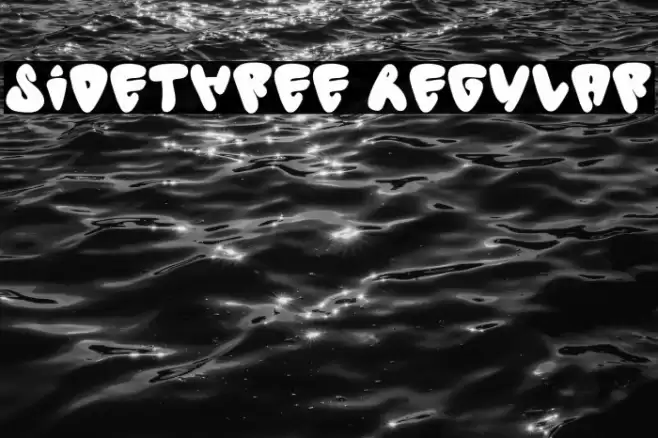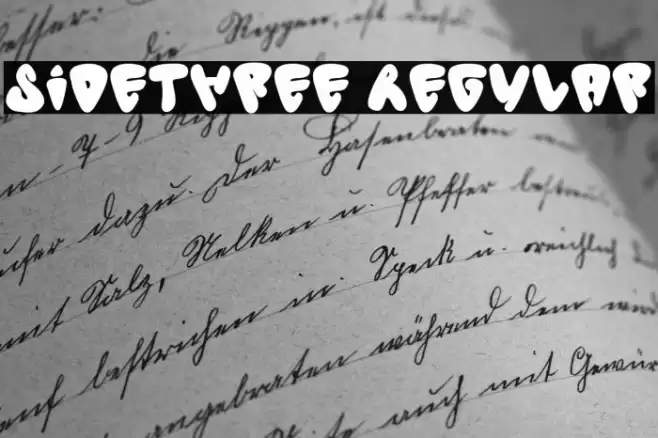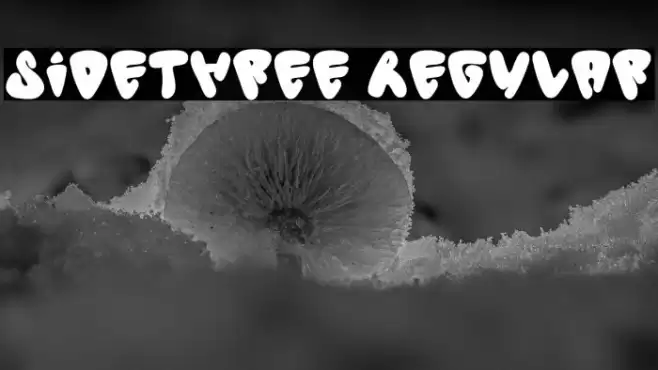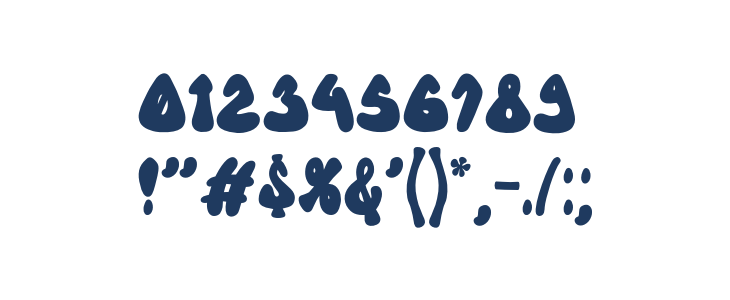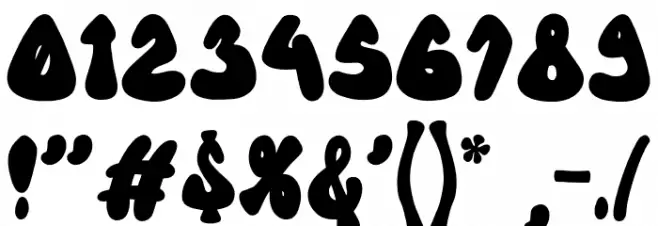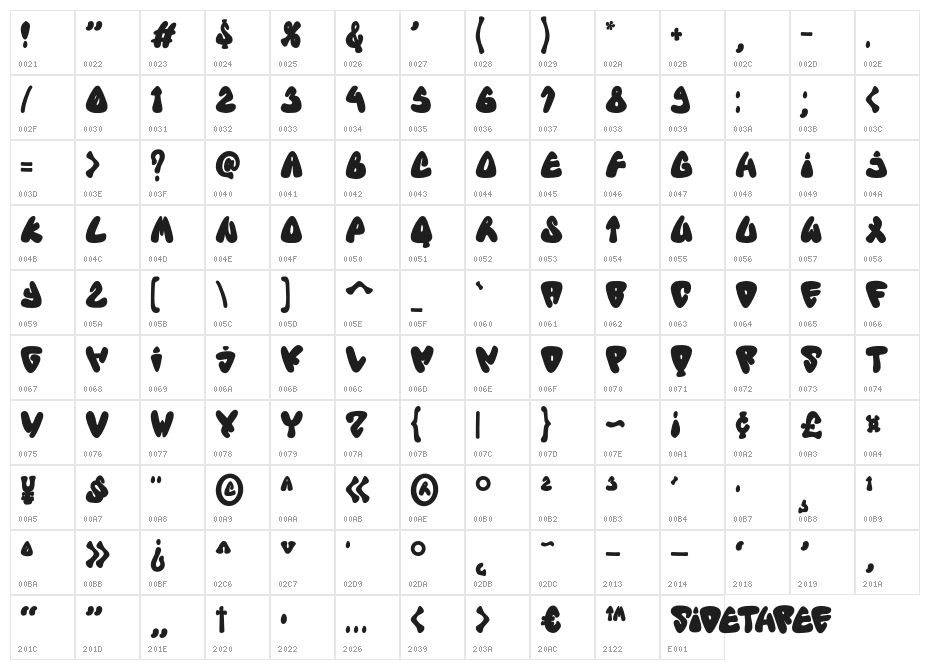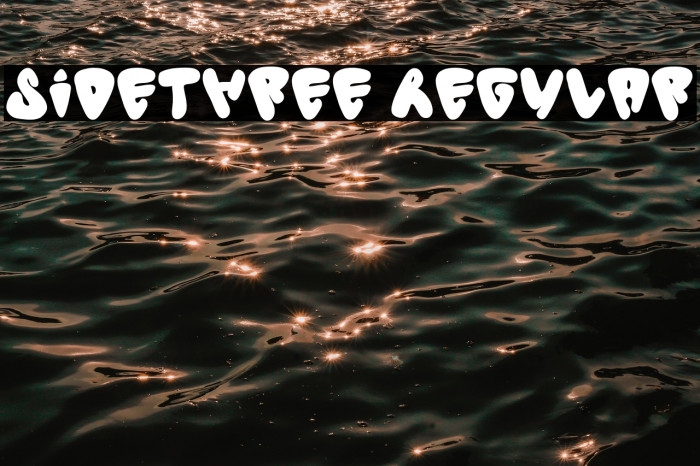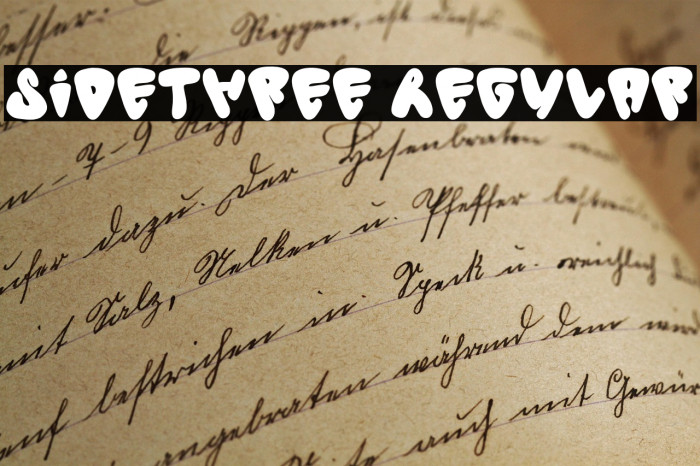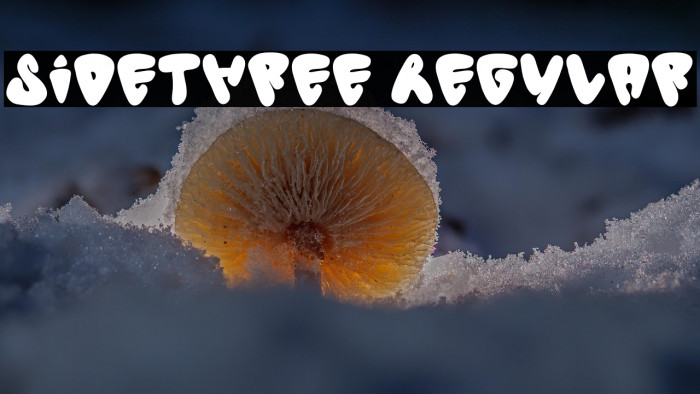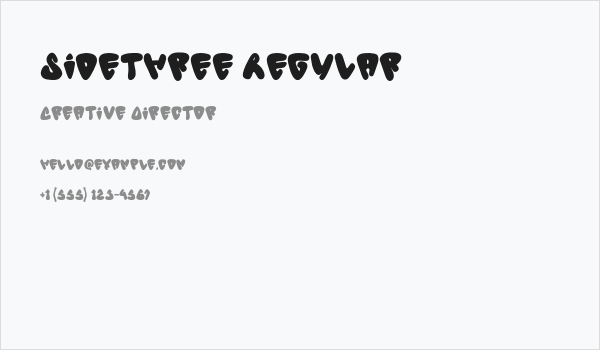
Sidethree Regular Font
Sidethree Regular Description
This font features a playful and bold design with rounded, bulbous characters that convey a sense of fun and whimsy. The letters are thick and have a soft, almost cartoonish appearance, making them stand out with a strong visual presence. The strokes are consistent in thickness, providing a uniform look across all characters. The font's unique style is characterized by its exaggerated curves and smooth edges, giving it a friendly and approachable feel. It is well-suited for creative and informal applications where a lively and engaging typeface is desired.
A playful, bold font with rounded, cartoonish characters from Uncategorized fonts.
- Proposed Projects: Ideal for children's books, playful branding, posters, and social media graphics.
- Overall Style: Playful